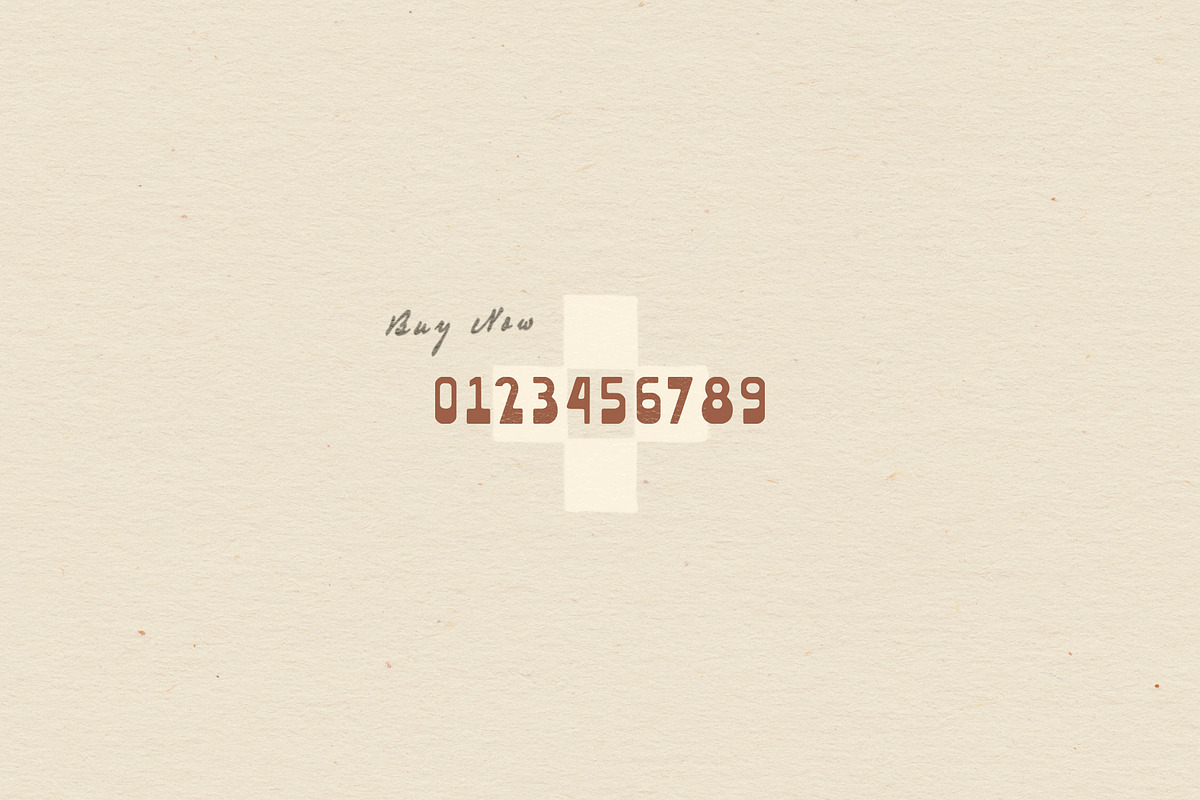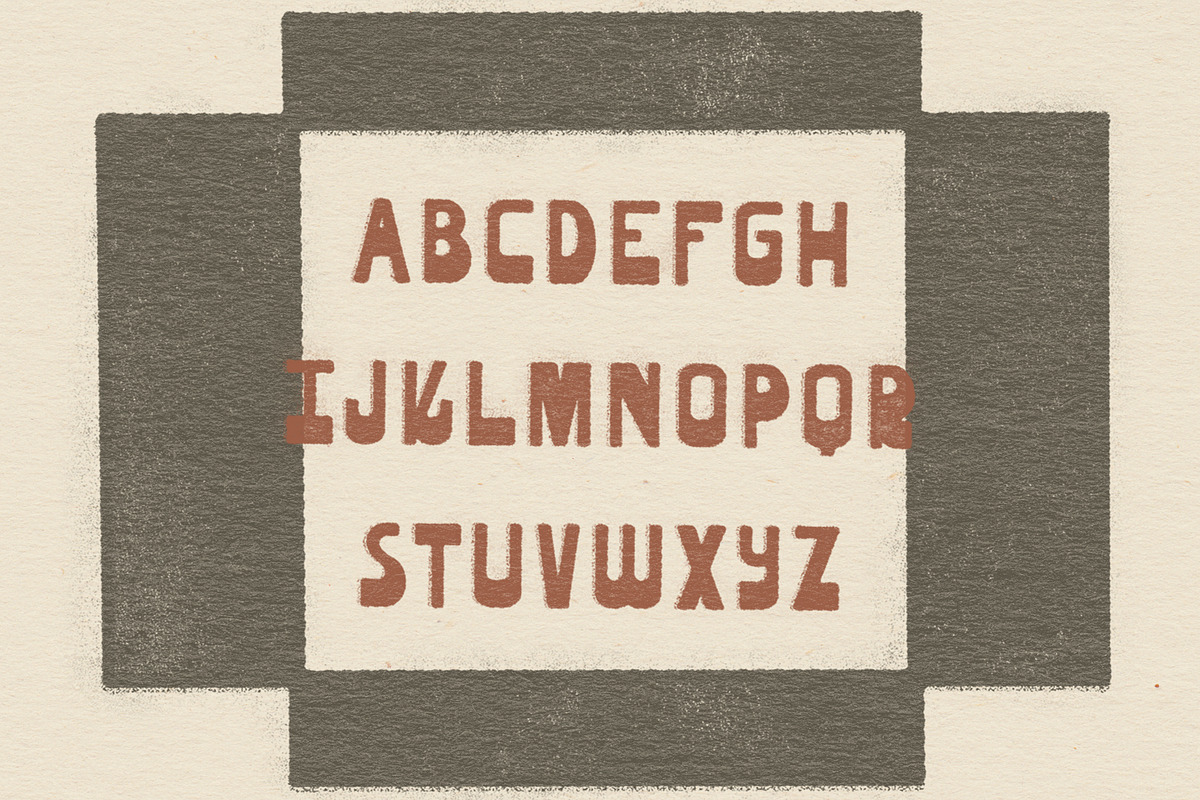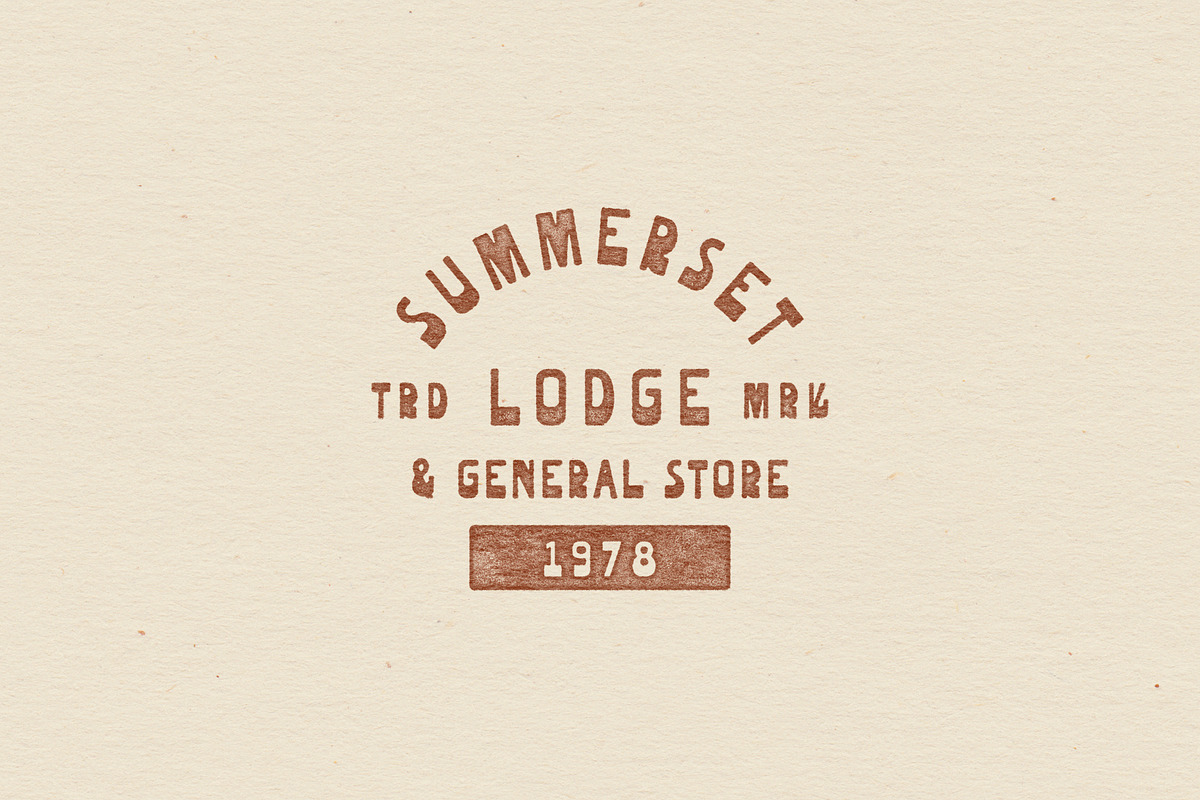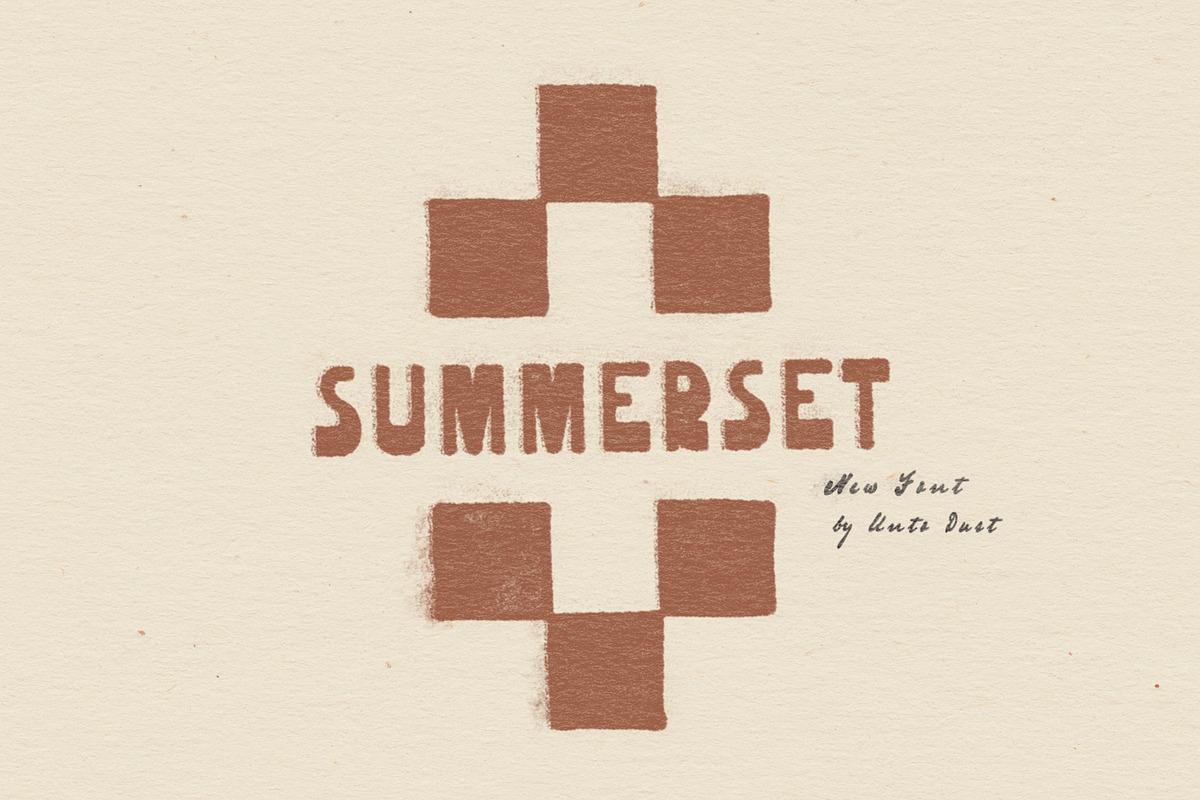
Summerset Hand Drawn Font
Summerset is a hand drawn display font created by Unto Dust. Drawing influence from the long shadows cast as the sun dips below the horizon, this font has a sense of 70s nostalgia. Summerset is an all-caps typeface that includes numbers and basic punctuation.